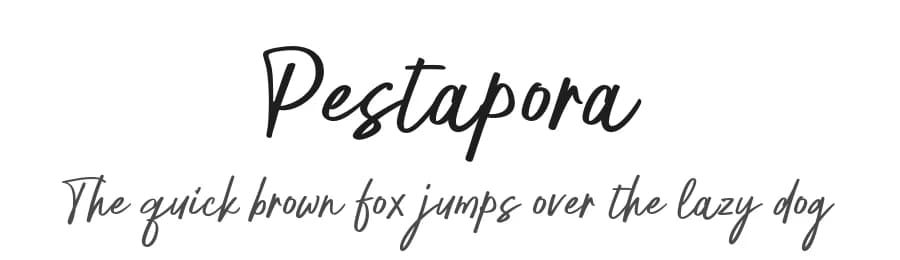
About Pestapora Font
Pestapora - A cheerful and spontaneous handwriting font. Based on markers that are designed in such a way as to have an authentic and personal impression but are suitable to be applied to various design needs; posters, headline, logotype, packaging design, t-shirt, invitation etc.
Pestapora Font